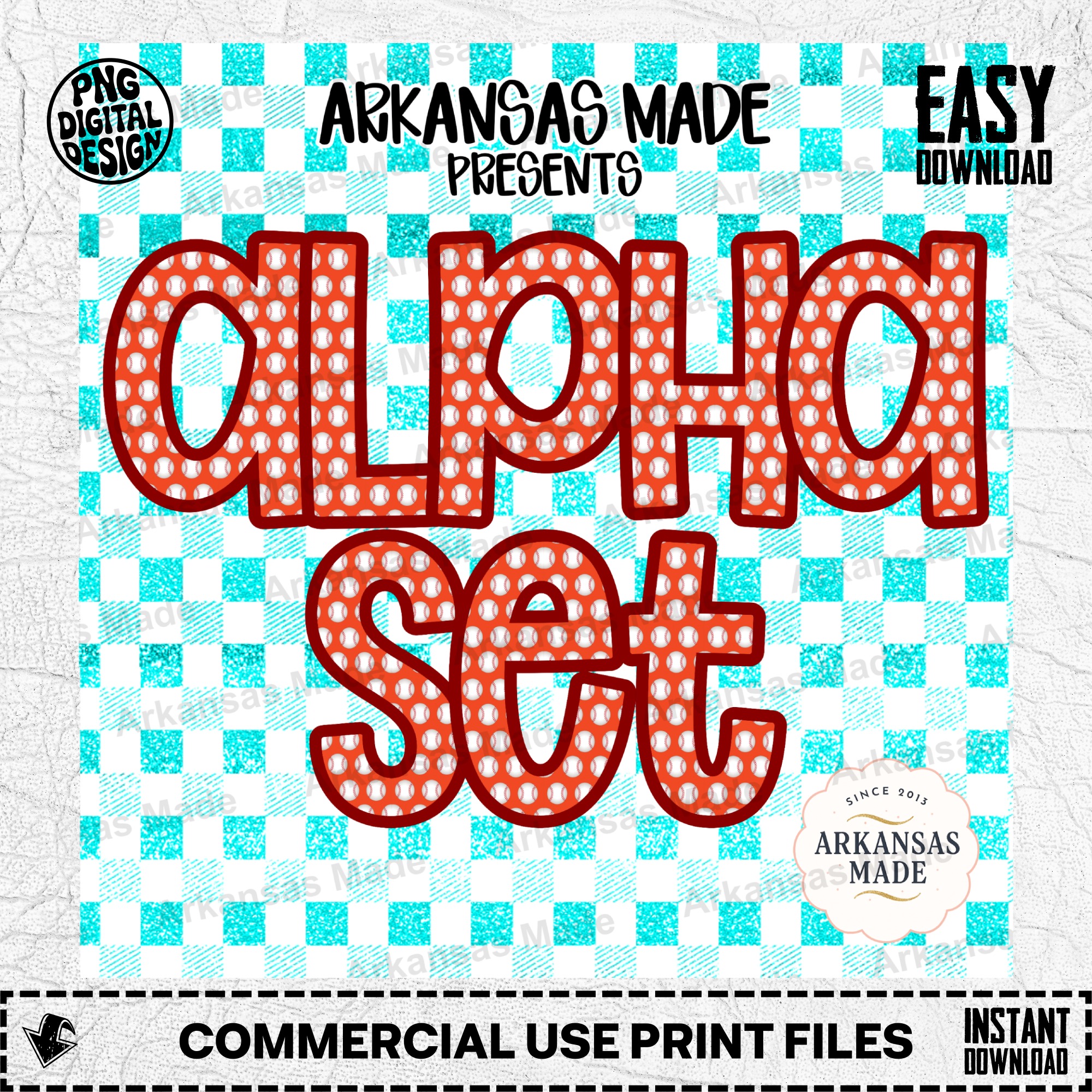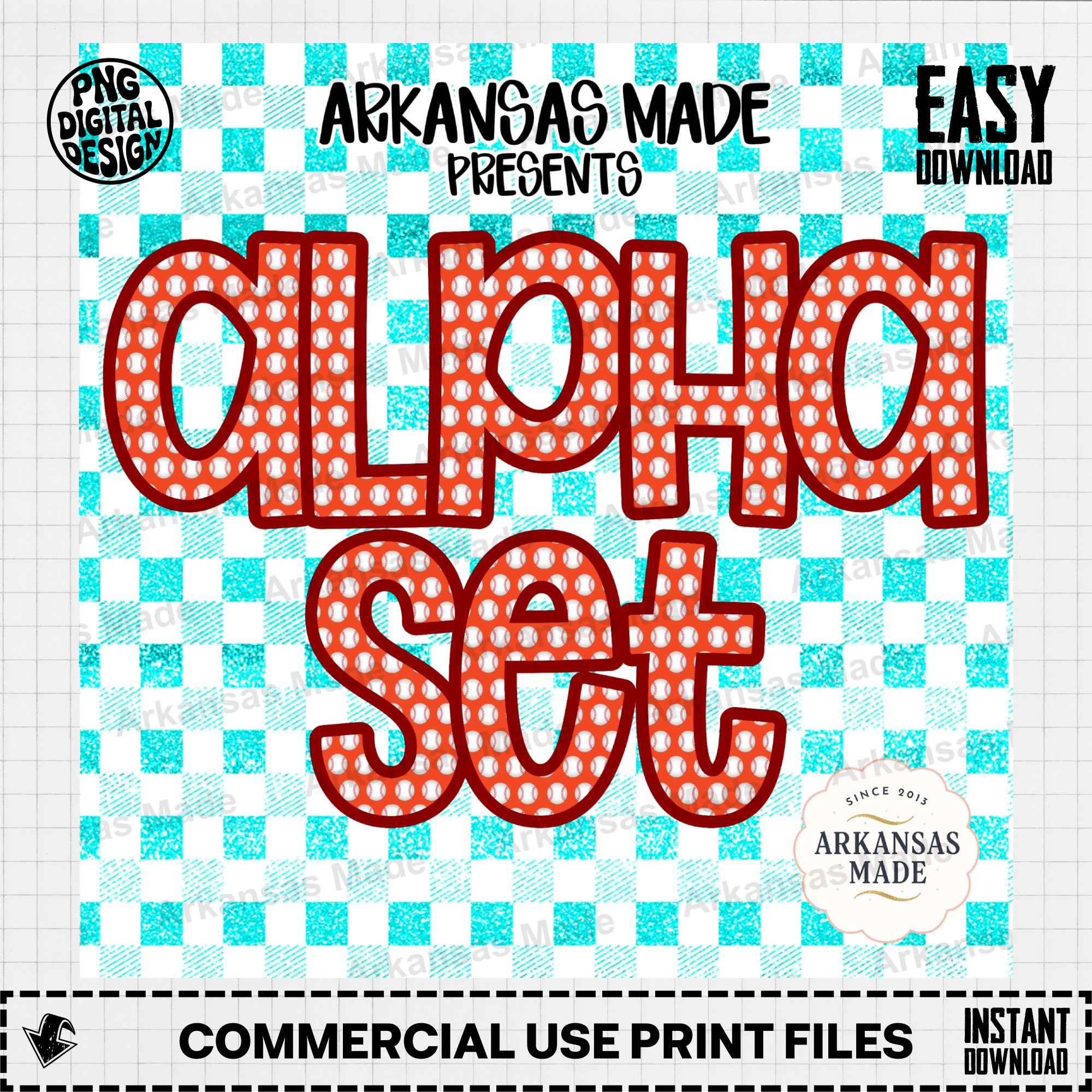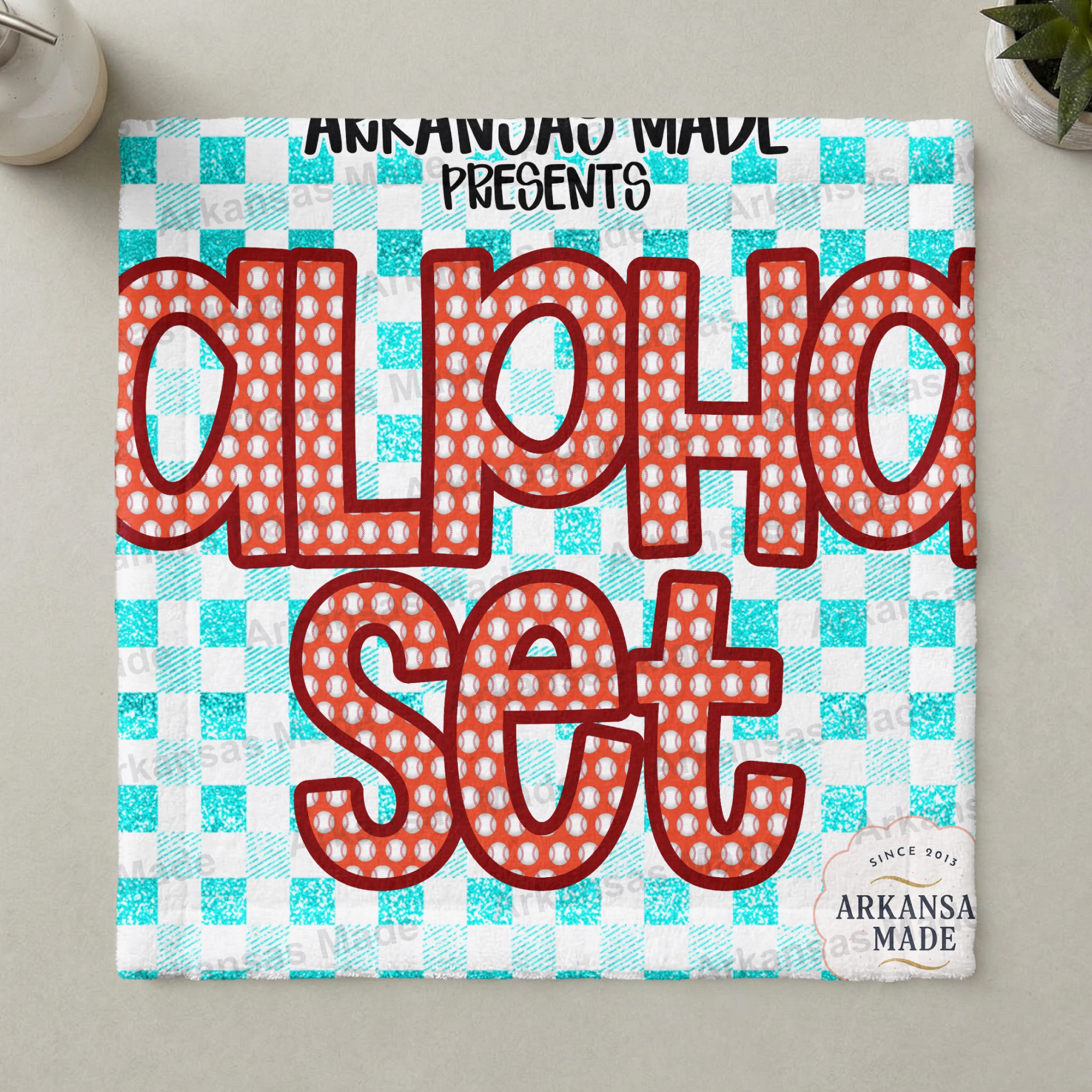
Get ready for gameday with this vibrant Baseball Font Alpha Set, a versatile digital download of glitter gingham letters and numbers perfect for all your crafting projects! This sports-themed PNG alphabet features a playful red baseball pattern fill with a faux glitter teal gingham background, ideal for creating unique sublimation designs, personalized apparel, or team spirit accessories. It’s perfect for baseball moms, softball enthusiasts, coaches, and crafters looking to add a touch of sporty sparkle to their DIY creations. Celebrate birthdays, team events, or show off your love for the game with this energetic and fun alpha set, making great gifts for any sports fan.